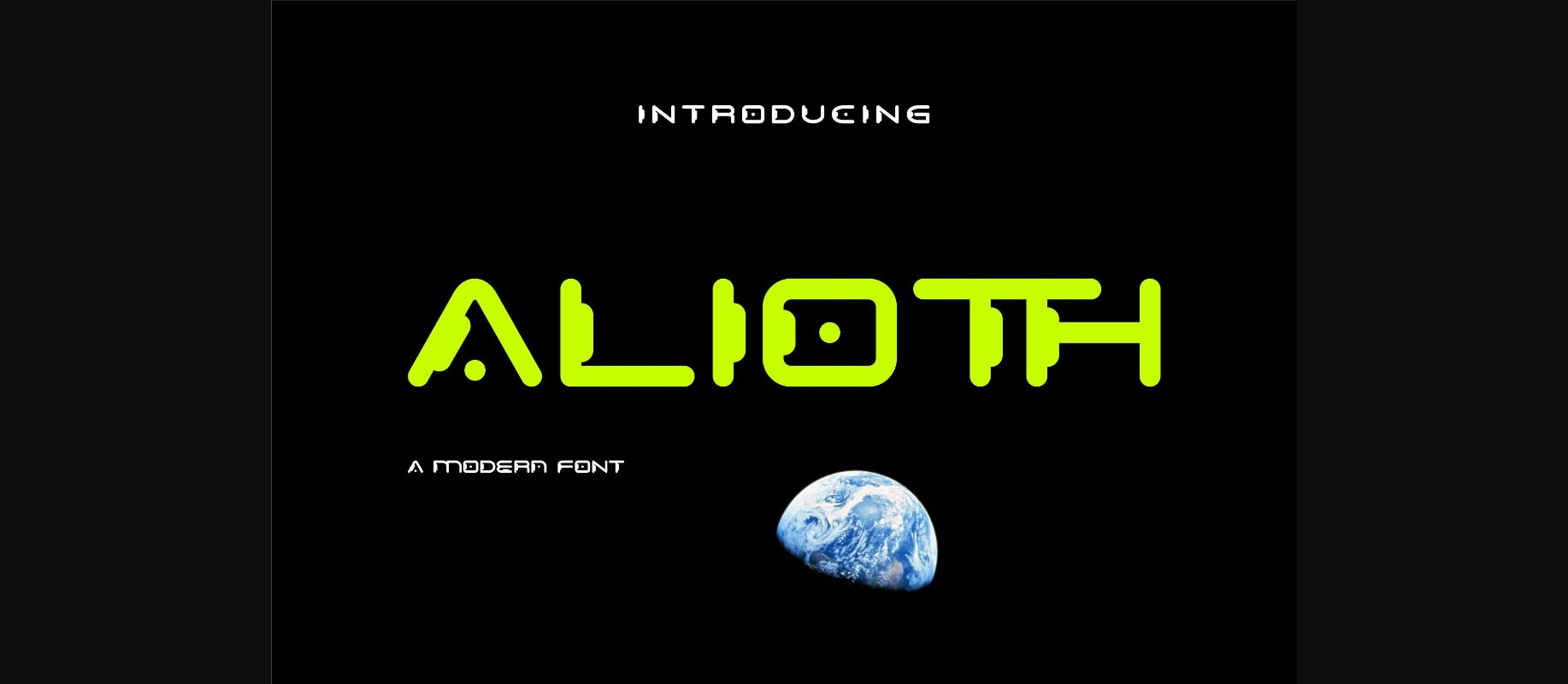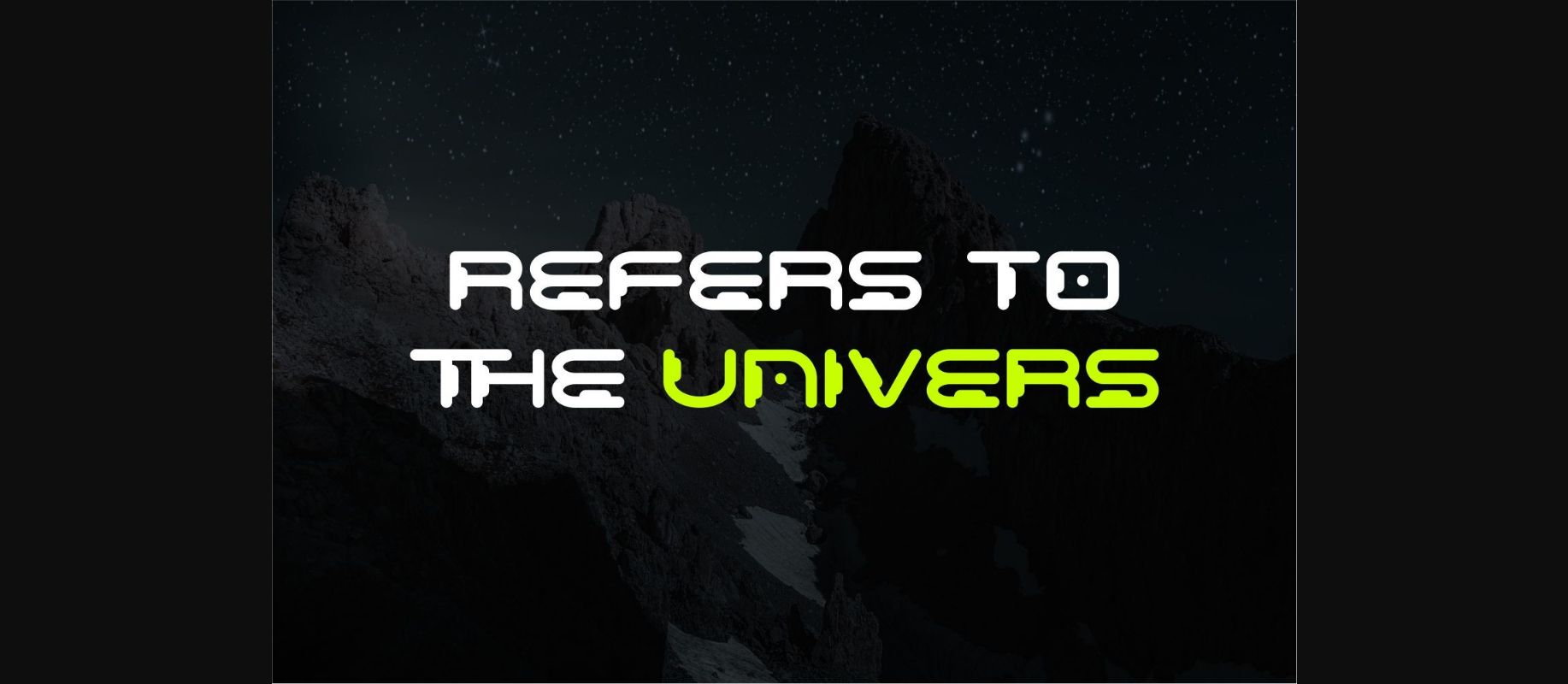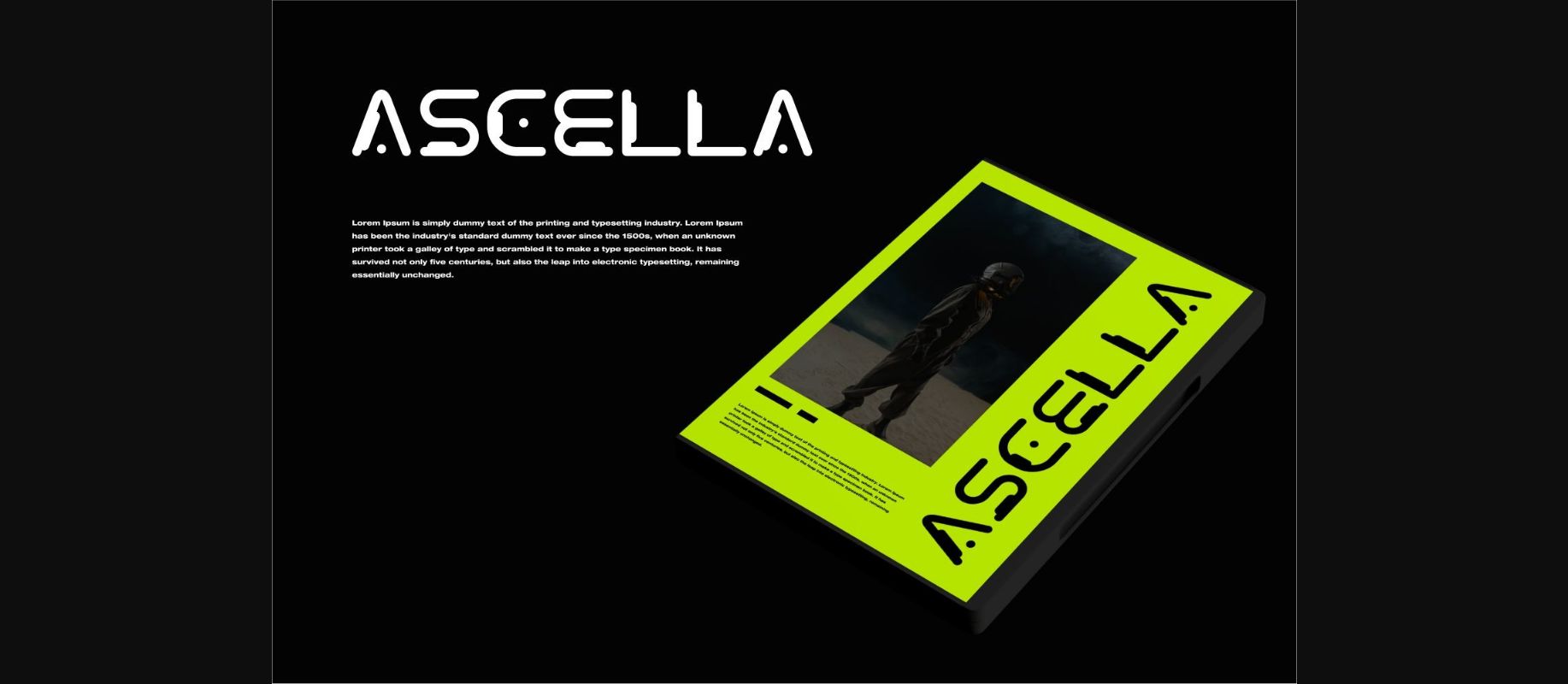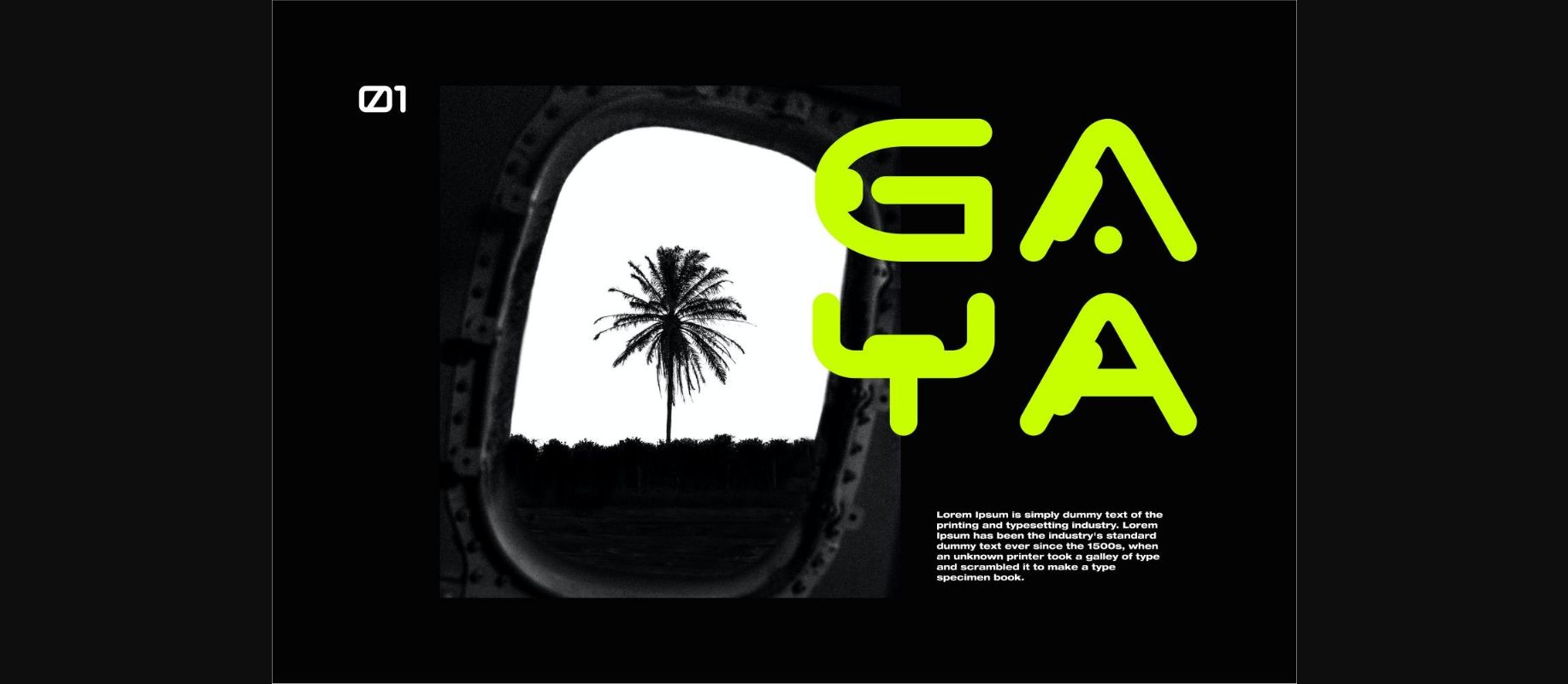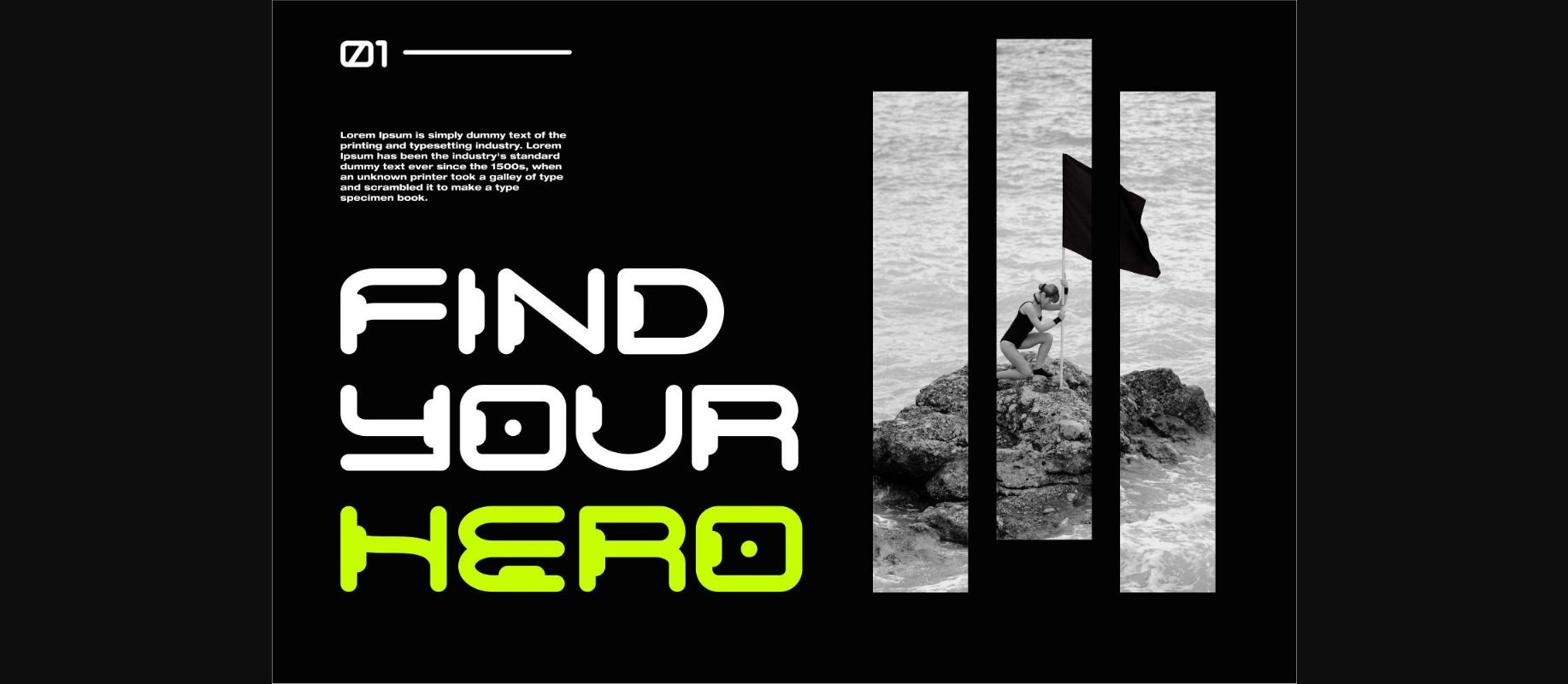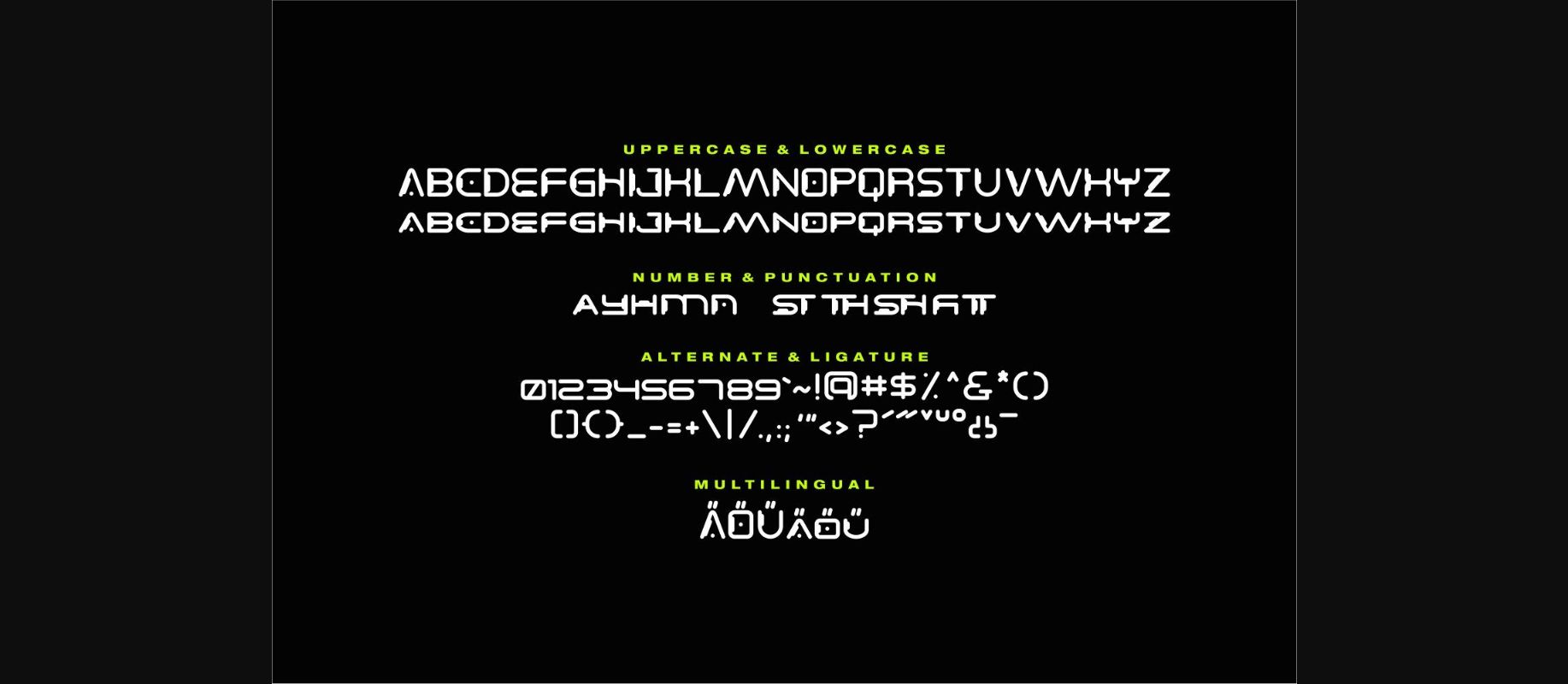
Alioth Font
About Alioth Font
Alioth is a unique decorative font with a futuristic style. It will look beautiful on magazine covers, greeting cards, branding materials, business cards, quotes, posters, and more!